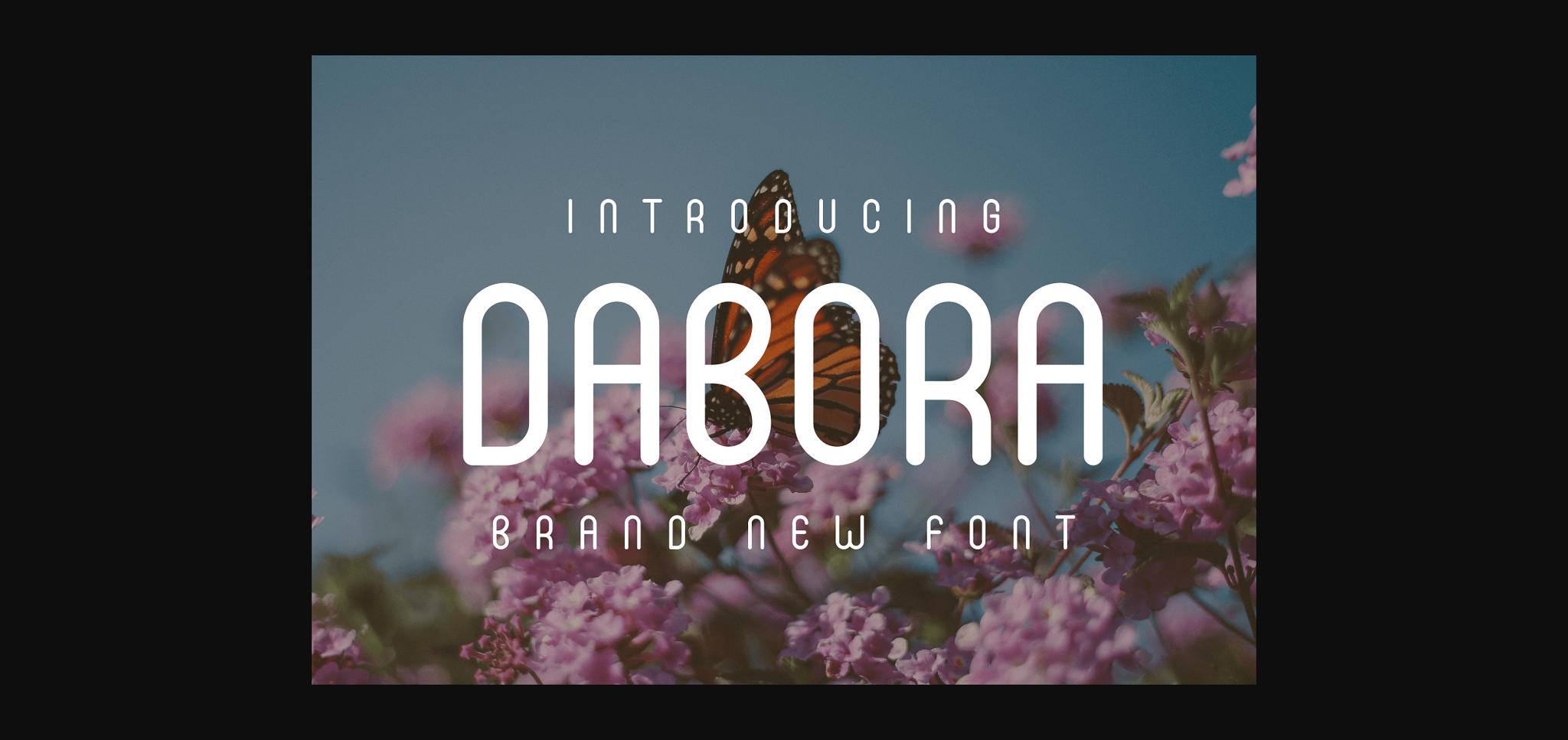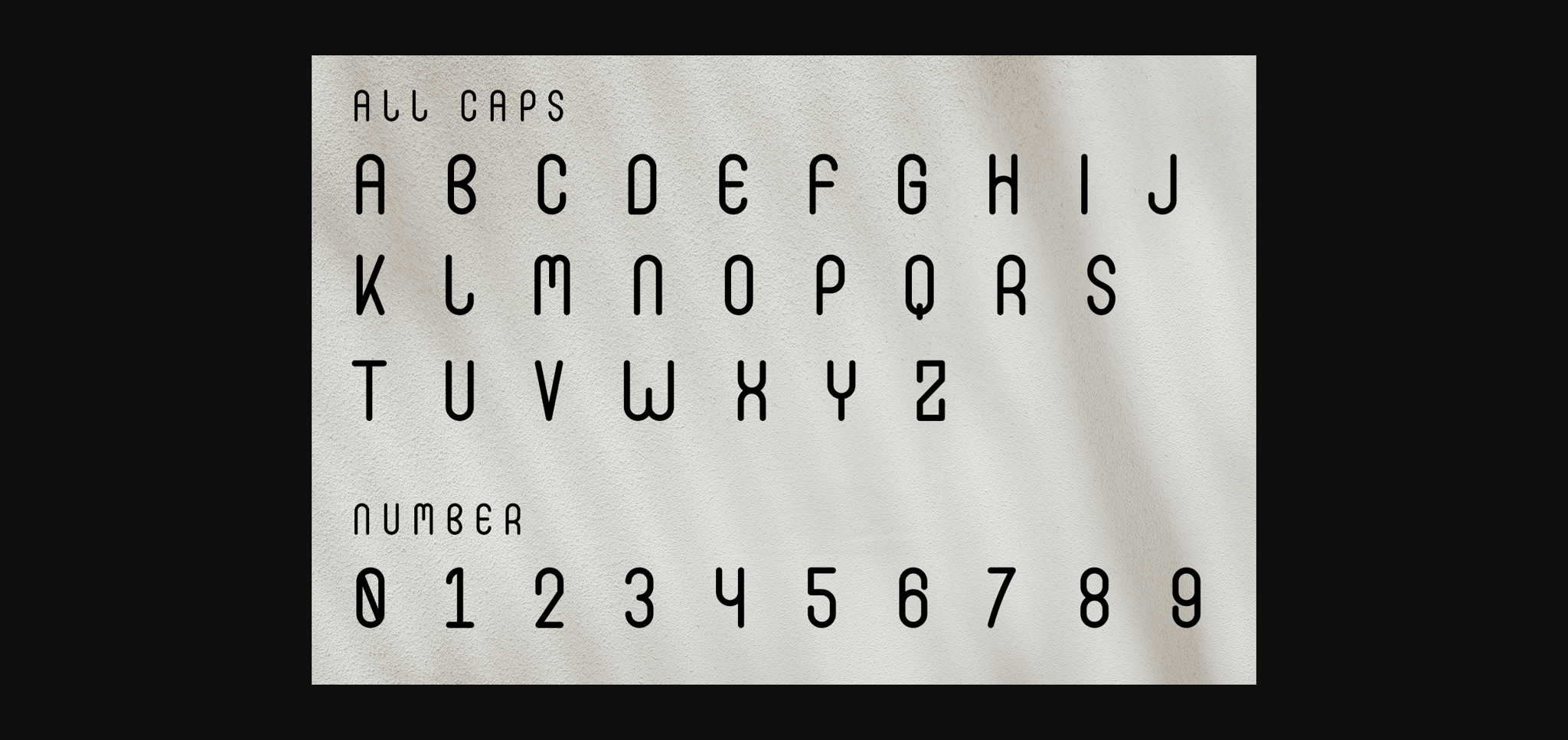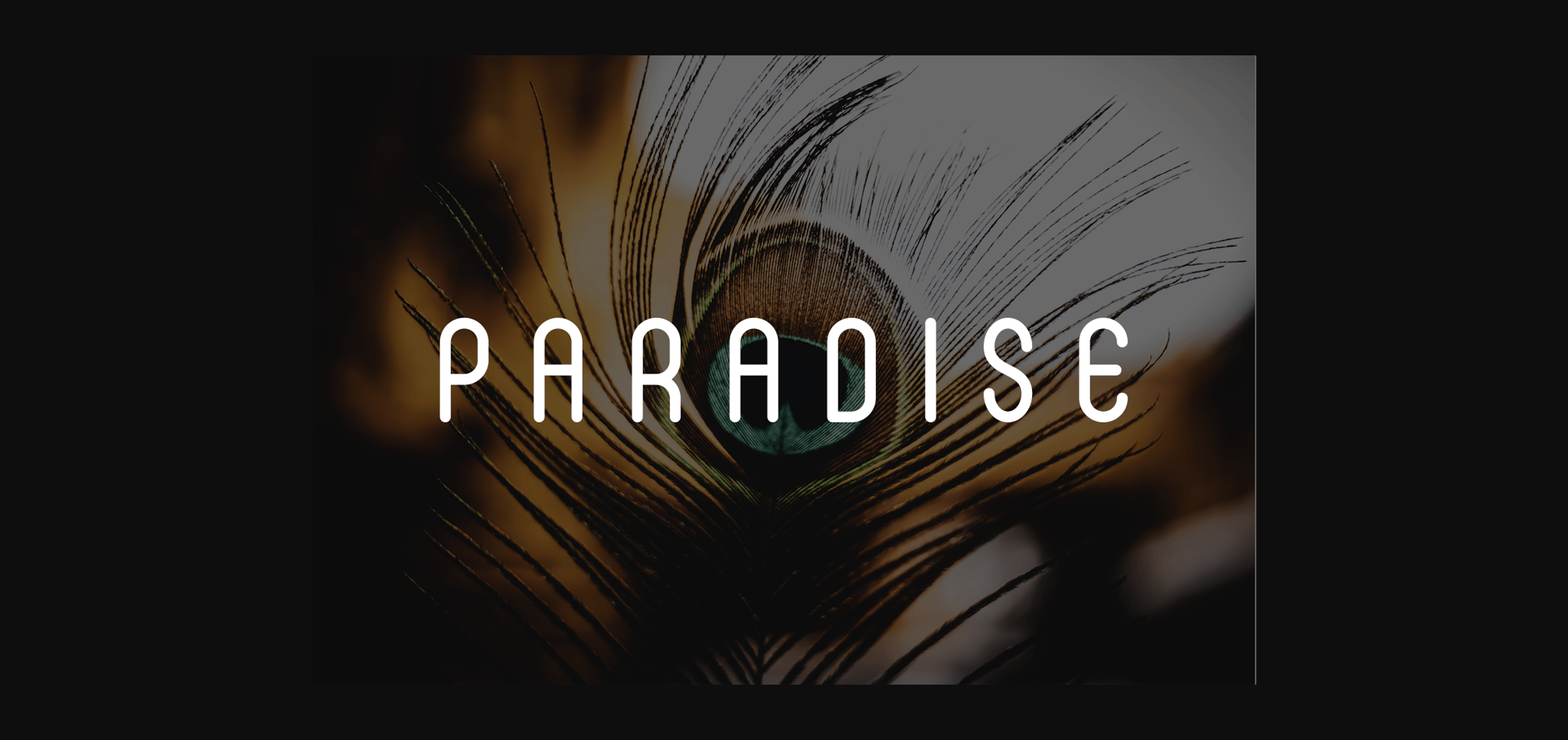
Dabora Font
About Dabora Font
Dabora is a cool and modern sans serif font. No matter the topic, this font will be an incredible asset to your fonts’ library, as it has the potential to elevate any creation.